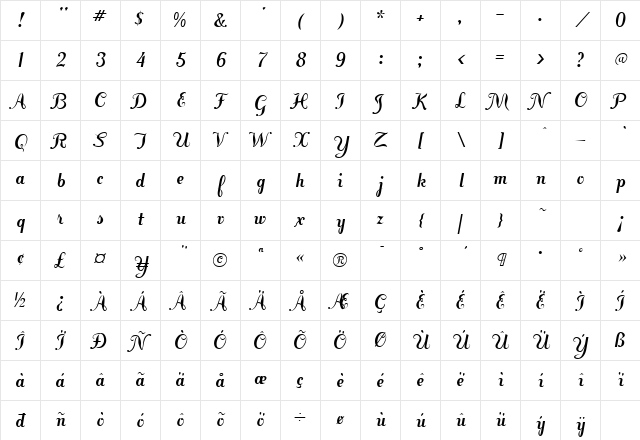
FansiPensle Bold Free Font
FansiPensle Bold
Design Context for FansiPensle
FansiPensle is a composed and adaptable typeface that performs quietly and consistently across a wide range of design contexts. Its bold stroke weight gives it real presence on the page.